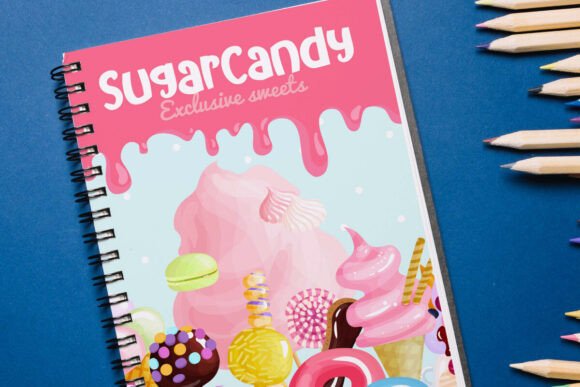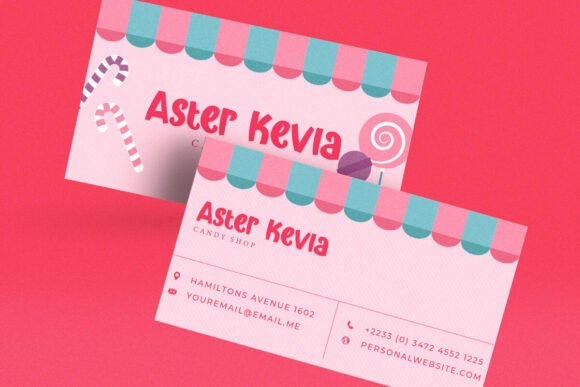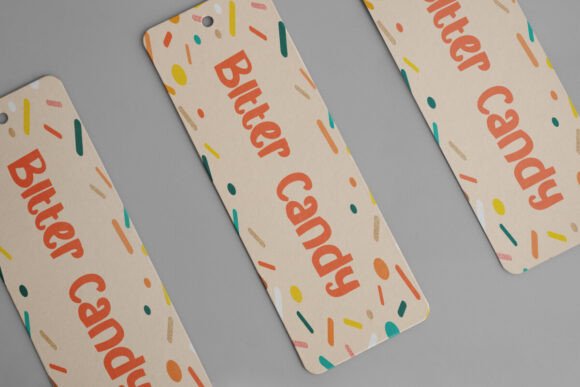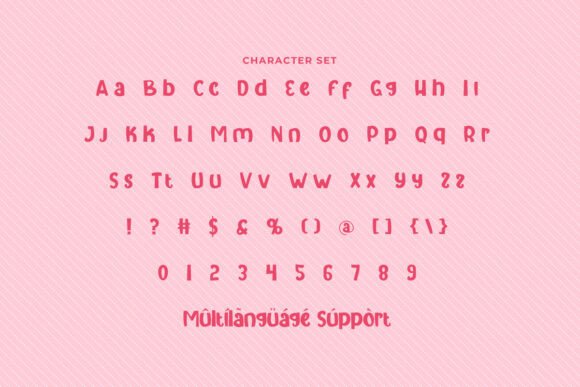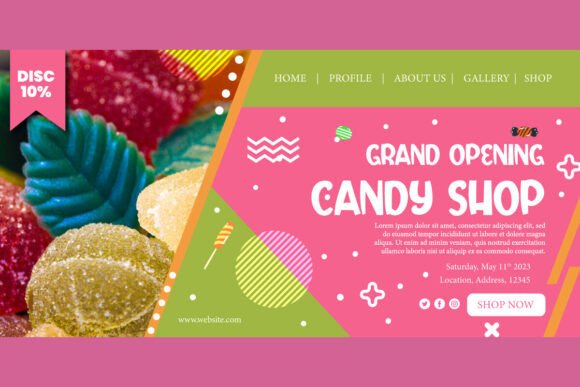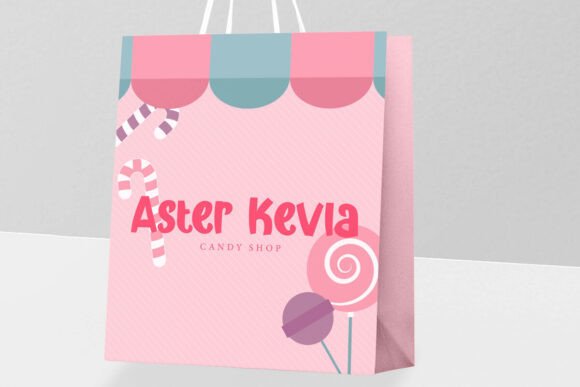
Bitter Candy Font: The Sweetest Addition to Your Design Collection
Are you tired of using the same old fonts in your designs? Look no further than Bitter Candy Font, a foodist adorable display font that’s sure to add a touch of sweetness to any project. Despite its name, Bitter Candy Font is anything but bitter – it’s a lovable and playful font that’s perfect for creating a wide range of designs that are as sugary as they are stylish.
Bitter Candy Font is a versatile font that’s perfect for designers and crafters of all levels. Whether you’re creating a brand image, brochure, card, cover, custom design, flyer, header, invitation, label, packaging, photo card, poster, quote, social media post, stationery, sticker, title, website, or anything else, this font is sure to make your design stand out. Its cute and playful shape is sure to add a touch of whimsy to any project, making it perfect for designs that need a bit of personality.
The Opposite of its Name: Sweet and Lovable
Despite its name, Bitter Candy Font is the epitome of sweet and lovable. Its adorable shape is sure to bring a smile to anyone’s face, making it perfect for designs that need to be fun and playful. Whether you’re creating a design for a children’s party, a bakery, or a candy store, this font is sure to fit the bill. Its sweet and charming appearance is sure to make your design stand out and leave a lasting impression on your audience.
With Bitter Candy Font, the design possibilities are endless. Here are just a few ideas to get you started:
- Branding: Use Bitter Candy Font to create a brand image that’s sweet and stylish. Perfect for bakeries, candy stores, and other businesses that want to add a touch of whimsy to their branding.
- Stationery: Add a touch of sweetness to your stationery with Bitter Candy Font. Perfect for creating custom invitations, greeting cards, and other paper goods.
- Social Media: Use Bitter Candy Font to create social media posts that are sure to stand out. Perfect for businesses and individuals who want to add a touch of personality to their online presence.
- Packaging: Add a touch of sweetness to your packaging with Bitter Candy Font. Perfect for businesses that want to create custom labels, stickers, and other packaging materials.
Why Choose Bitter Candy Font?
So why choose Bitter Candy Font over other fonts? Here are just a few reasons:
- Unique: Bitter Candy Font is a unique and original font that’s sure to make your design stand out.
- Versatile: This font is perfect for a wide range of designs, from branding and stationery to social media and packaging.
- Easy to Use: Bitter Candy Font is easy to use and comes in a variety of formats, making it perfect for designers and crafters of all levels.
- Adorable: Let’s face it – Bitter Candy Font is just plain adorable. Its cute and playful shape is sure to bring a smile to anyone’s face.
In conclusion, Bitter Candy Font is a sweet and lovable display font that’s perfect for designers and crafters of all levels. Its cute and playful shape is sure to add a touch of whimsy to any project, making it perfect for designs that need a bit of personality. With its endless design possibilities and easy-to-use format, Bitter Candy Font is sure to become a favorite in your design collection.